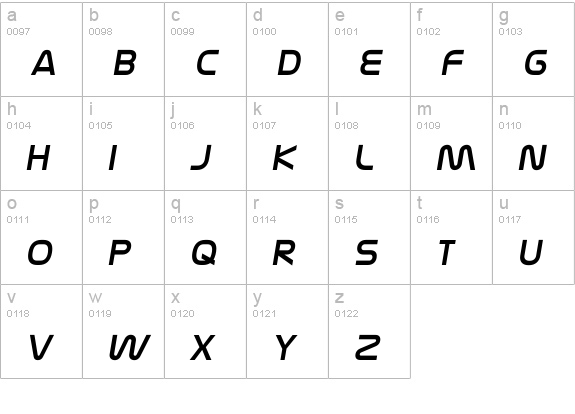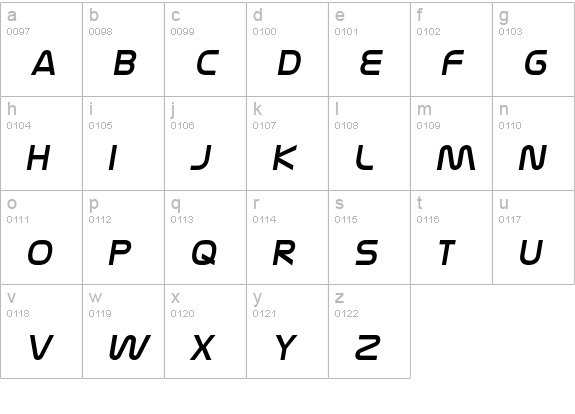
Nasalization Italic is a distinctive, italic variant in the Nasalization typeface family \xE2\x80\x94 well suited to design and typography projects.
Nasalization Italic font is a sleek and modern typeface with a unique twist, perfect for adding a touch of sophistication to your designs. Its italicized style exudes a sense of elegance and fluidity, making it an ideal choice for projects that require a contemporary and dynamic look. What sets Nasalization Italic font apart is its versatility - it can be used for a wide range of design applications, from branding and advertising to editorial design and packaging. The clean lines and subtle curves of this font give it a timeless appeal that will make your designs stand out. Best of all, Nasalization Italic font is available for free download at FontsMarket.com. So you can easily access this stylish and professional typeface to elevate your projects without breaking the bank. Don't miss out on this opportunity to add Nasalization Italic font to your font library today!